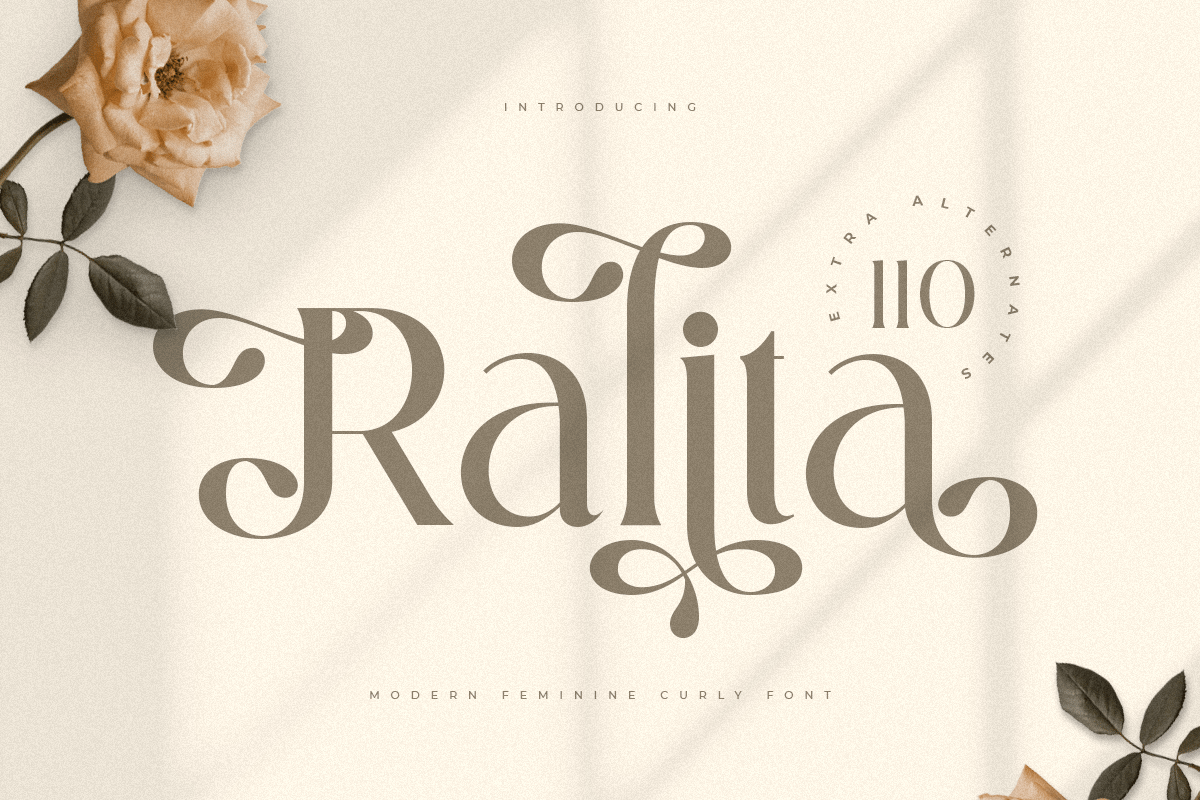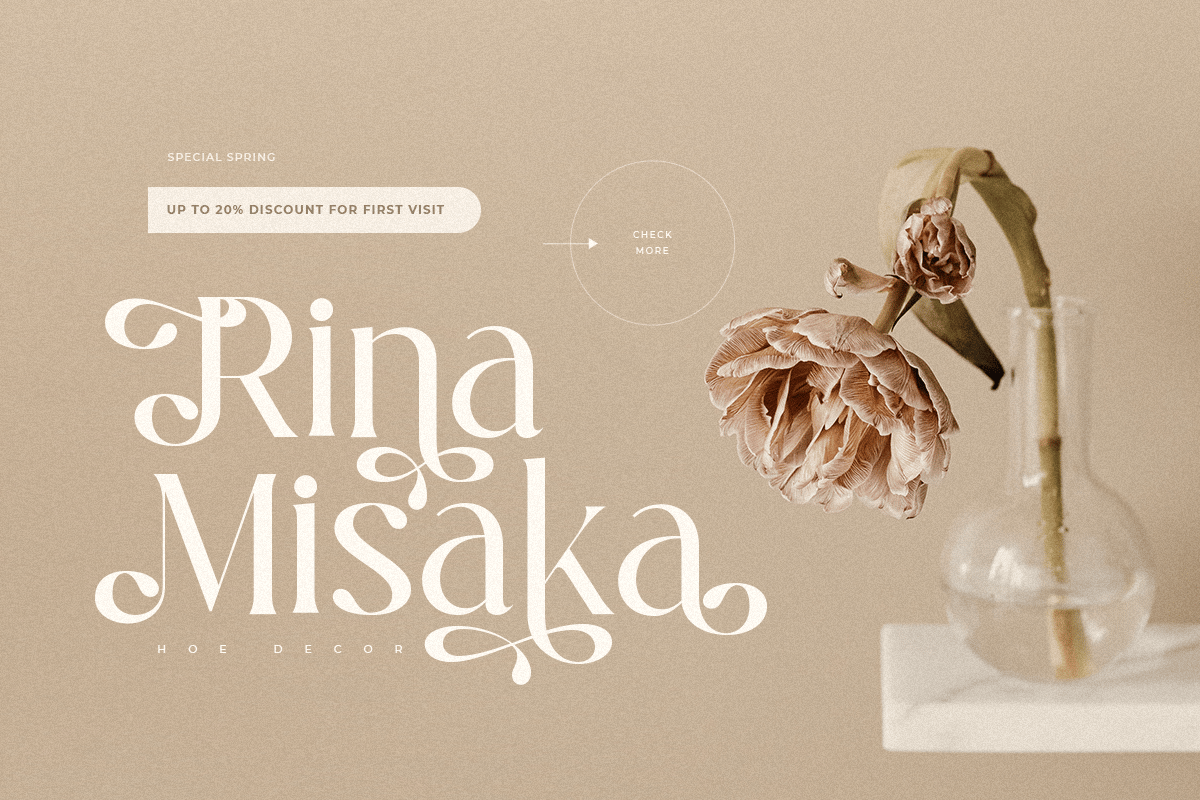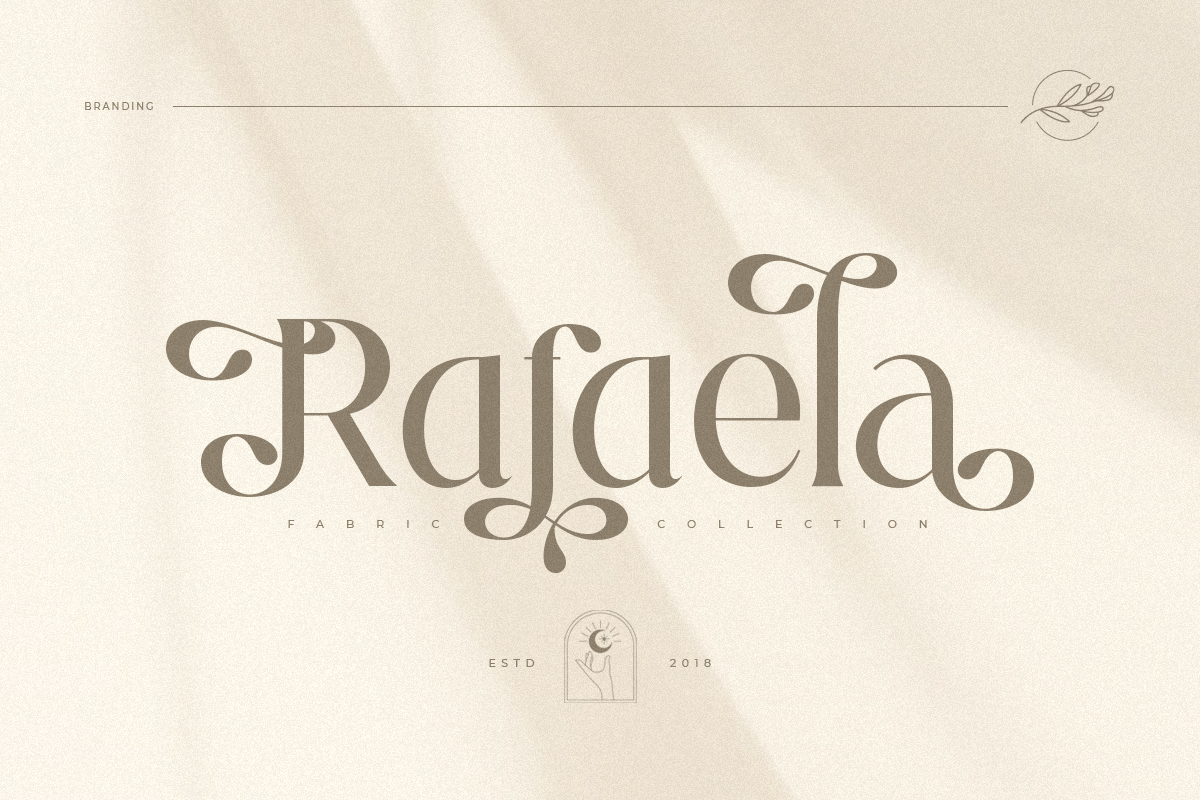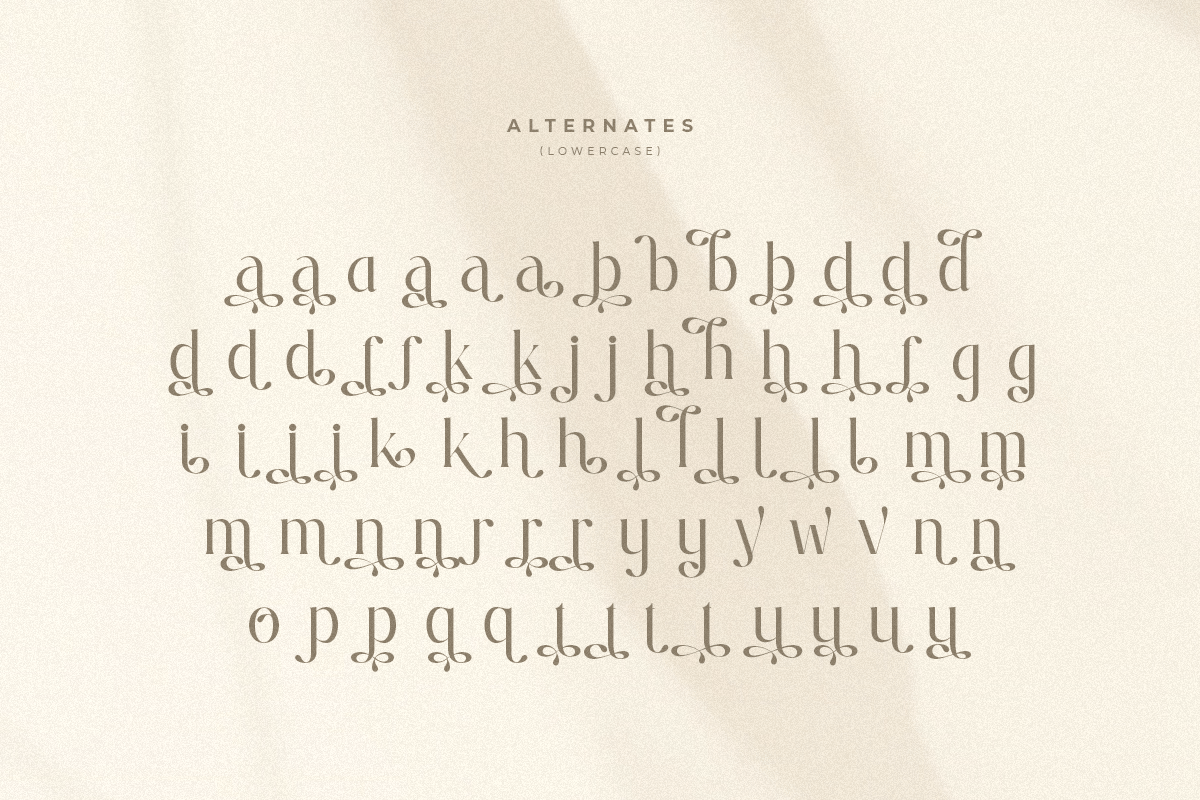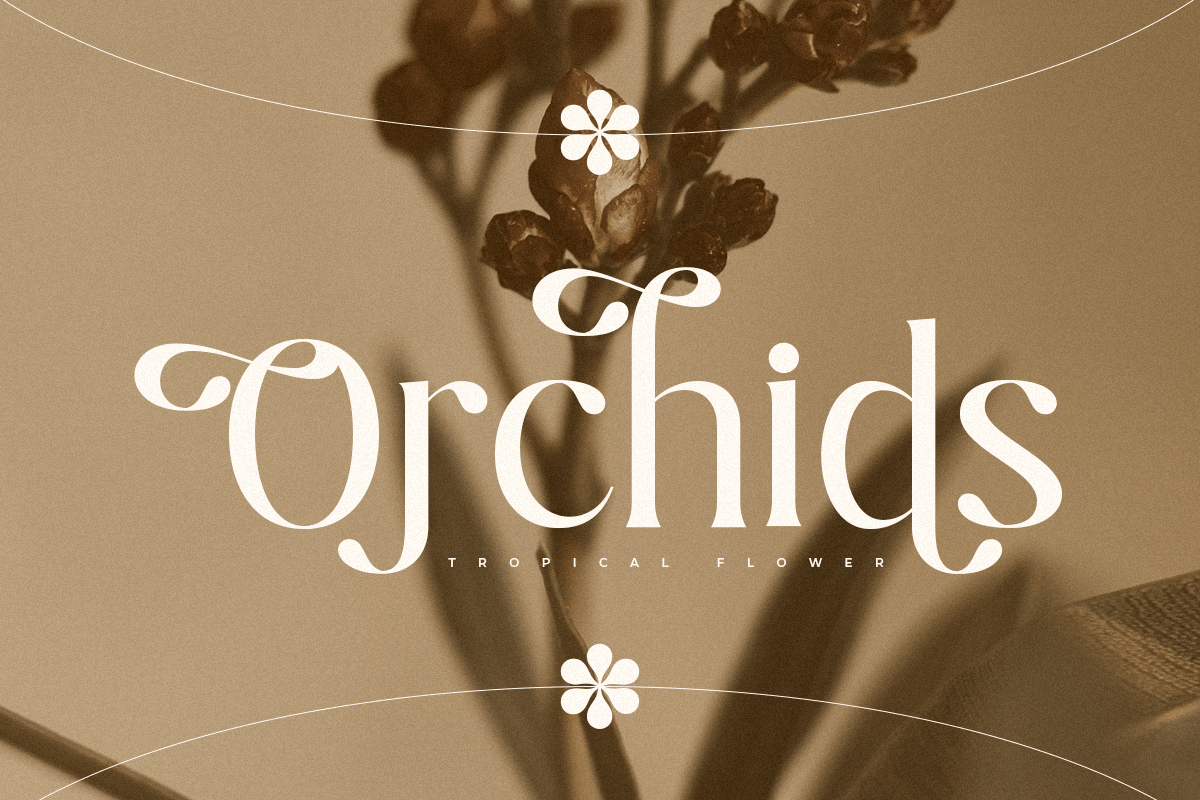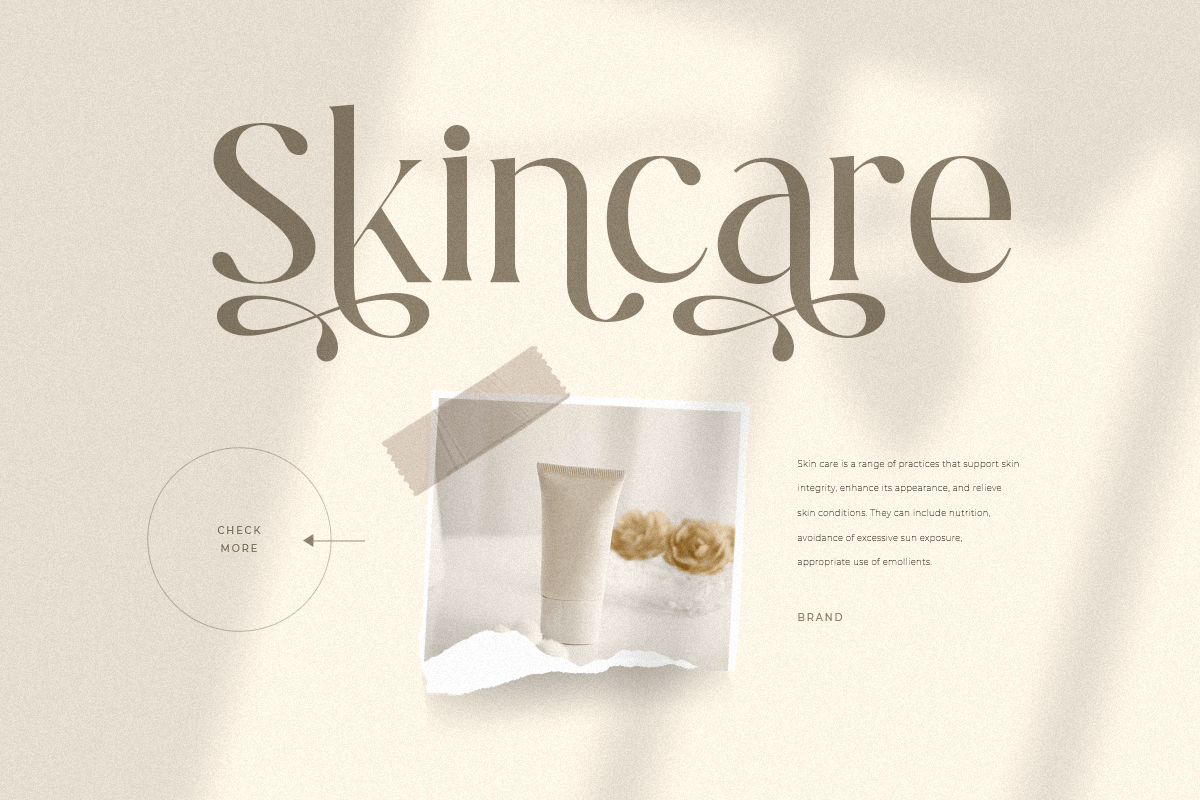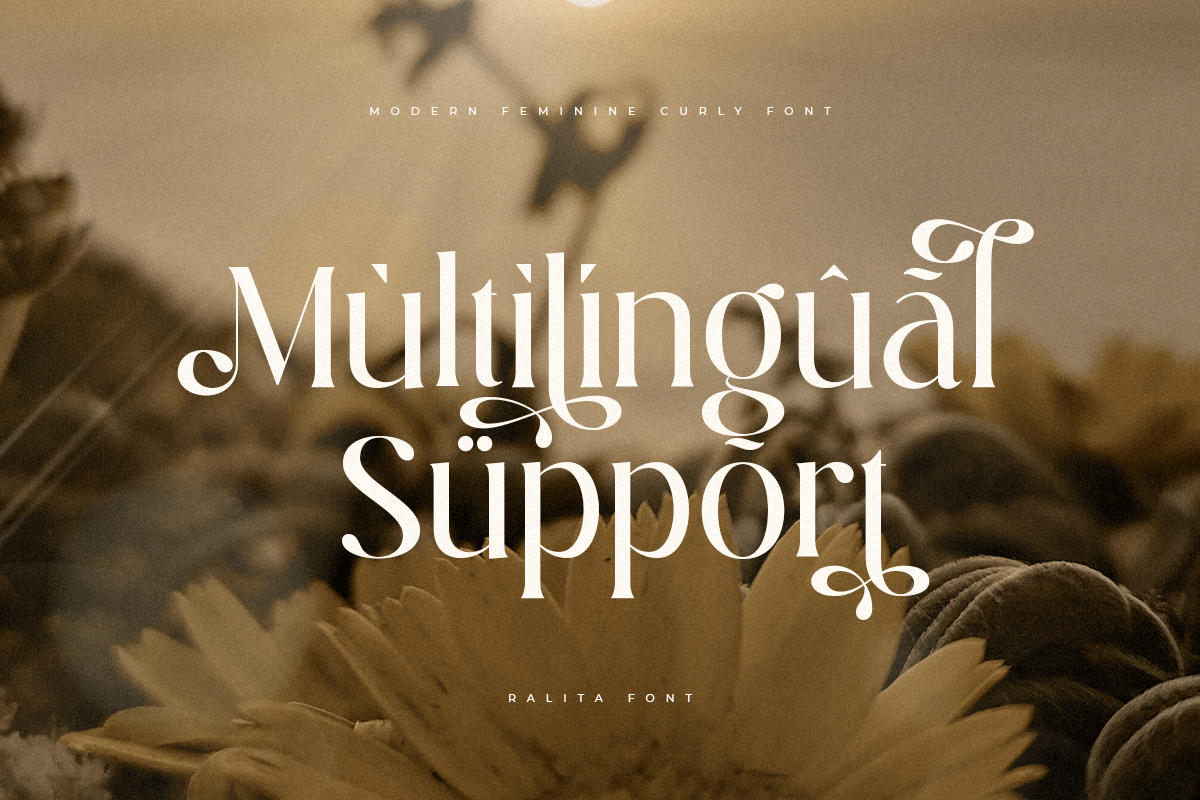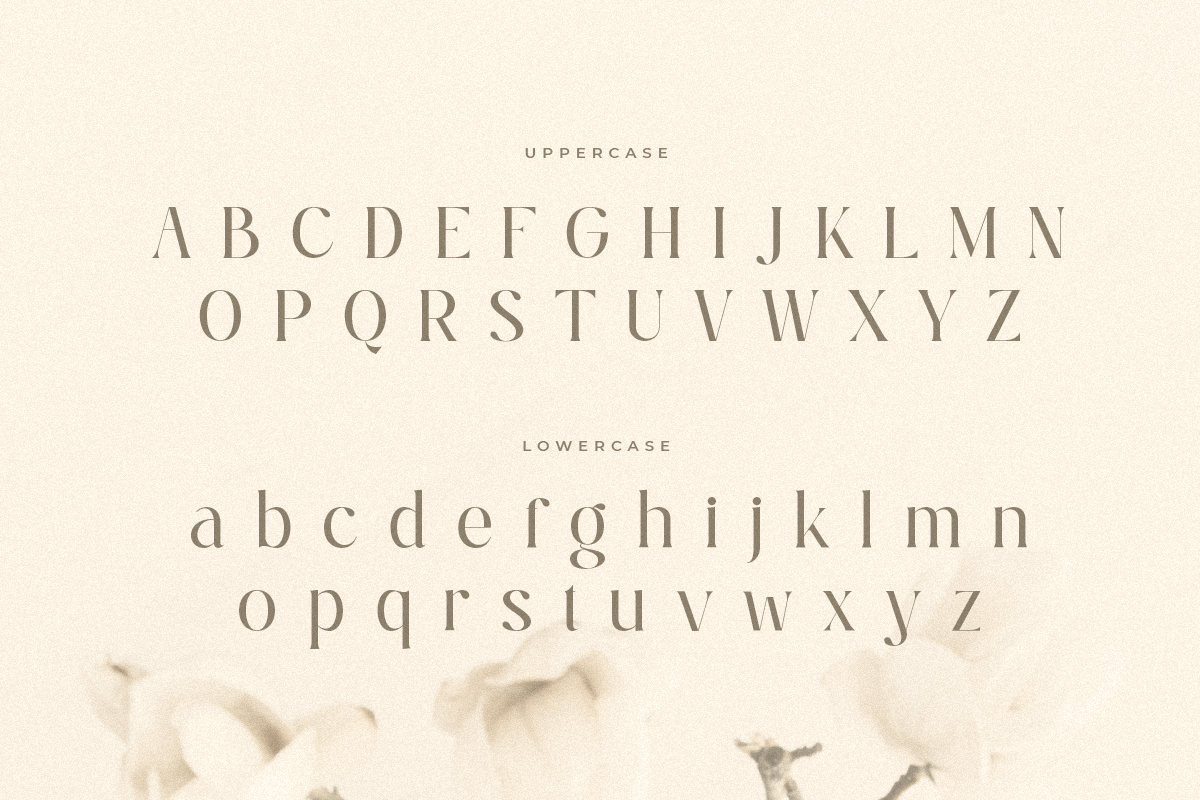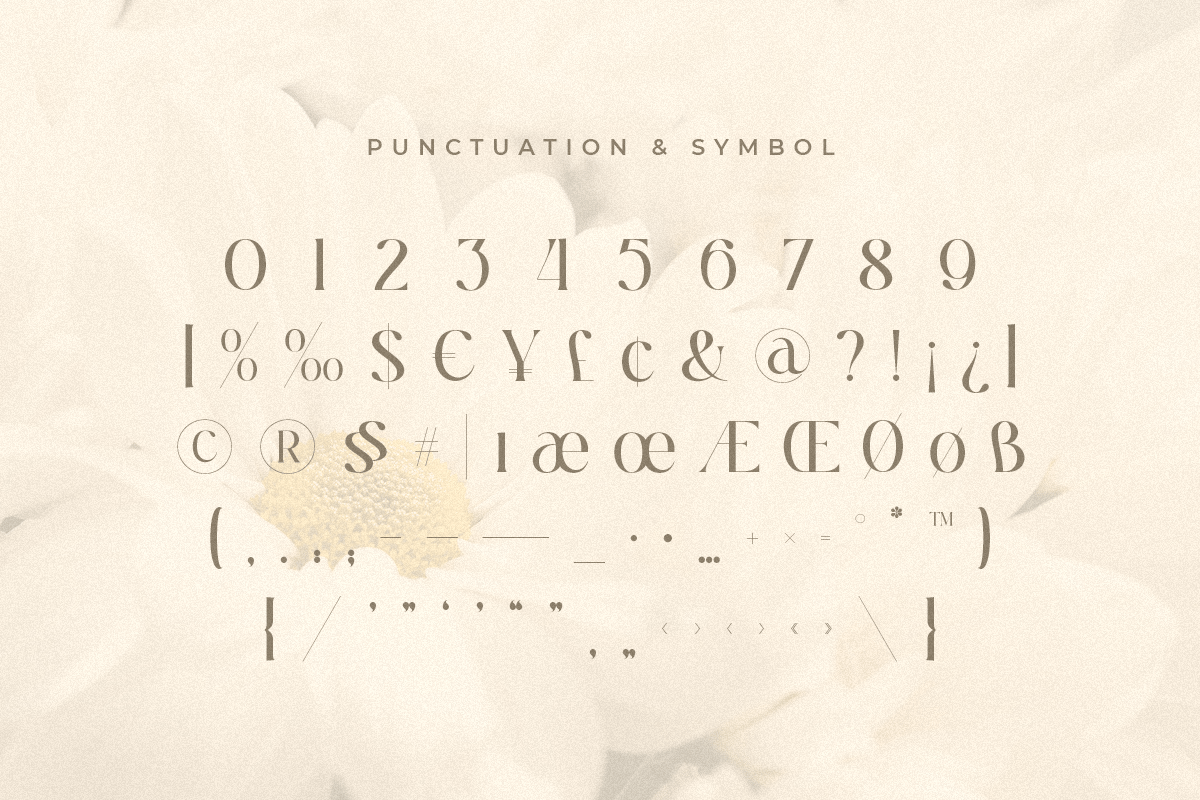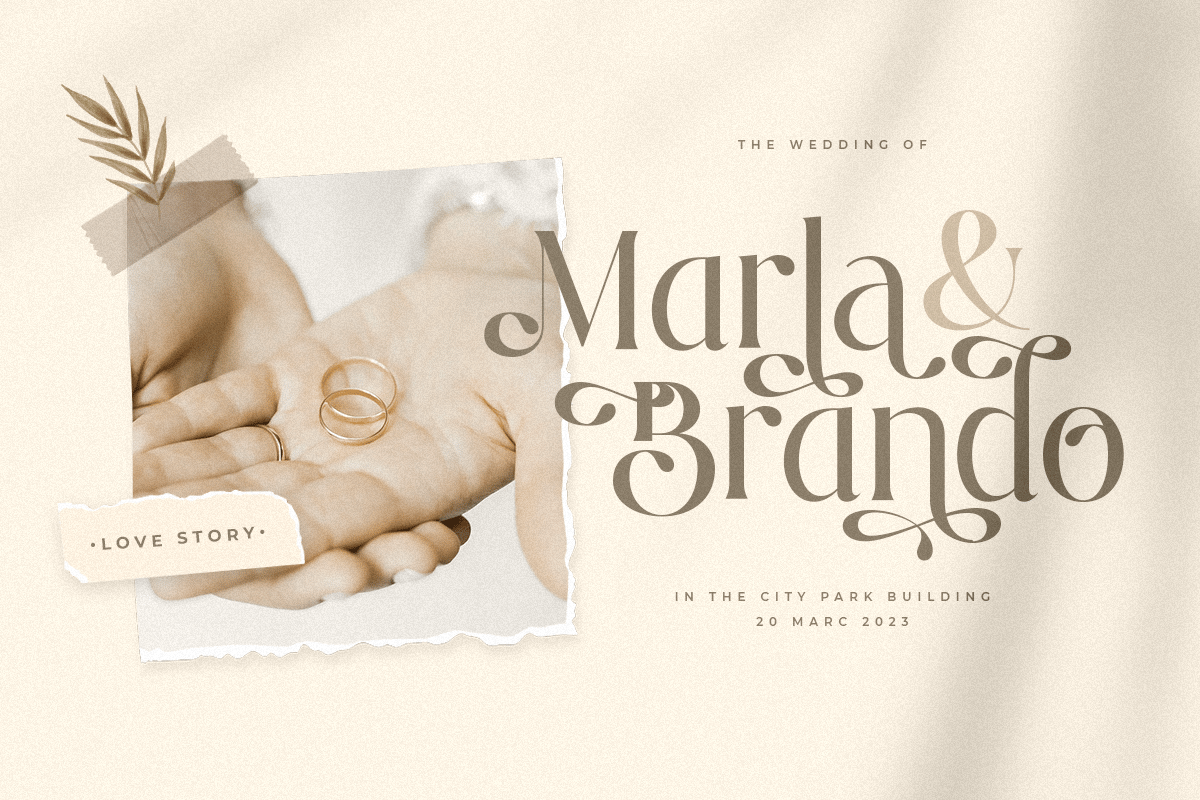
Ralita – Modern Feminine Curly Font
A Luxury Modern Feminine Curly Font that we created special for elegant branding needs, with unique shape will be ready to add value of your brand. It so nice to leverage designer or product owner that need solutions to make their design look more stylish and modern. And specially for Ralita font, We prepared any characters to help you create unlimited variations for your creative needs.
Ralita Luxury Modern Feminine Curly Font ready with:
- Unique Beauty Characters wit swash as alternates inside
- Preview as a inspirations that you can do with Ralita font
- Ready with Lowercase and Uppercase characters